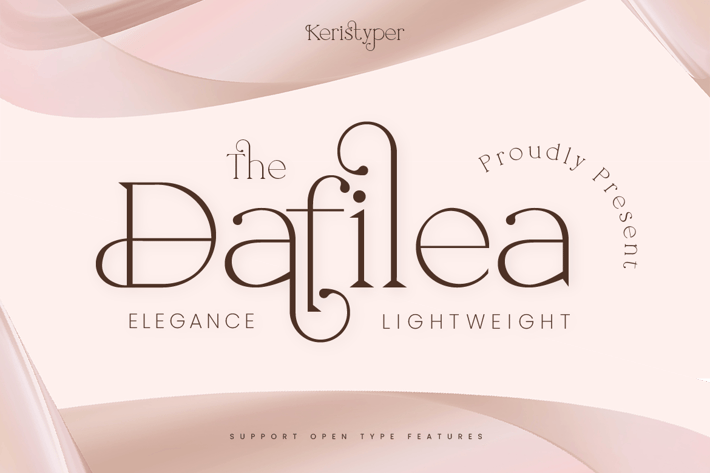
Dafiela Font
Introducing Dafilea font, a lightweight elegance in romantic curves with a glitchy and fluid aesthetic. This font is good for logo design, Social media, Movie Titles, Books Titles, short text even long text letters, and good for your secondary text font with the script, sans, or serif.
Standard Uppercase & Lowercase
Multilingual : ä ö ü Ä Ö Ü ß ¿ ¡
Alternate & Ligature